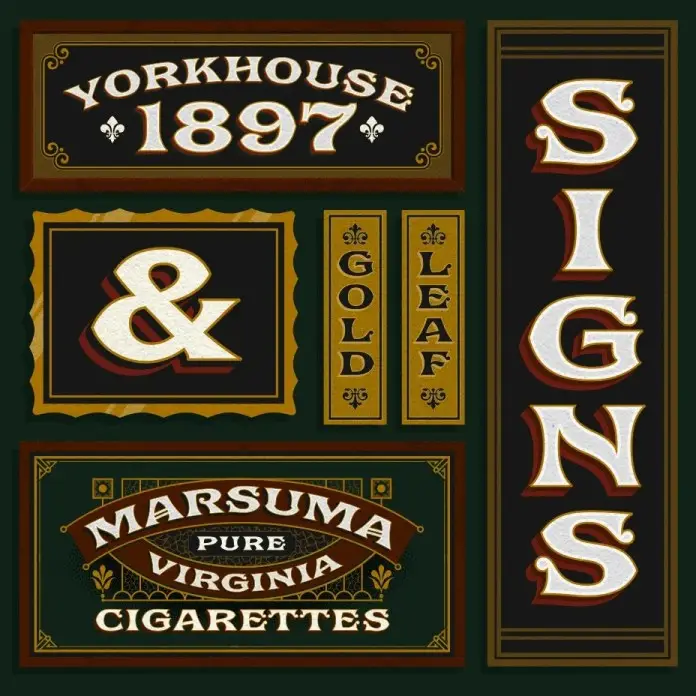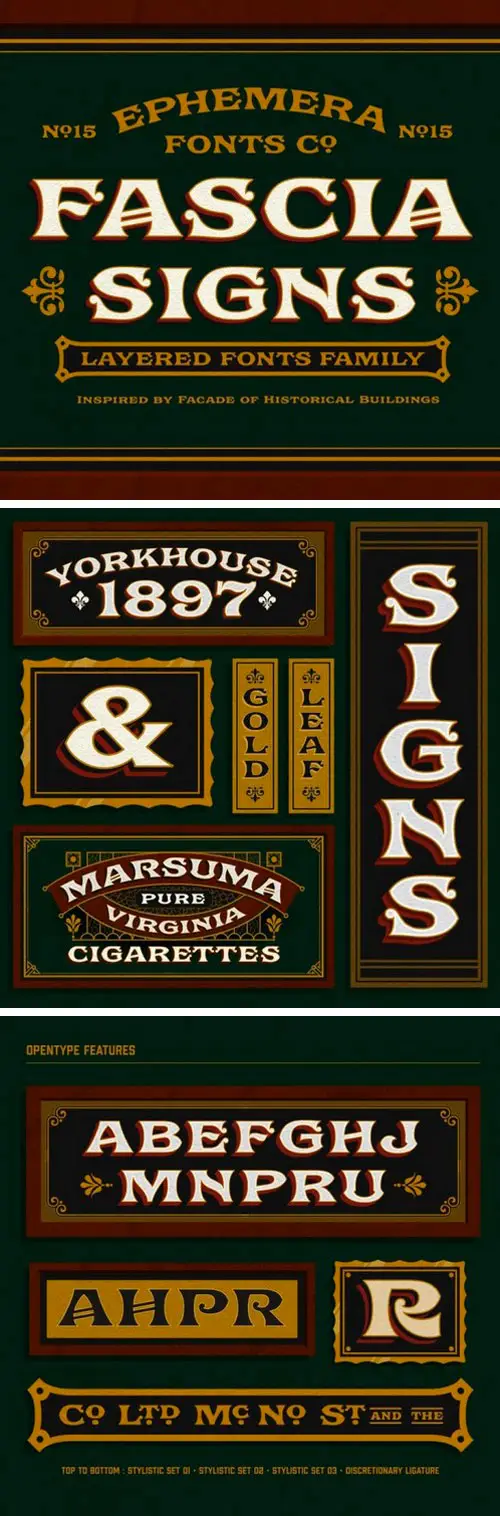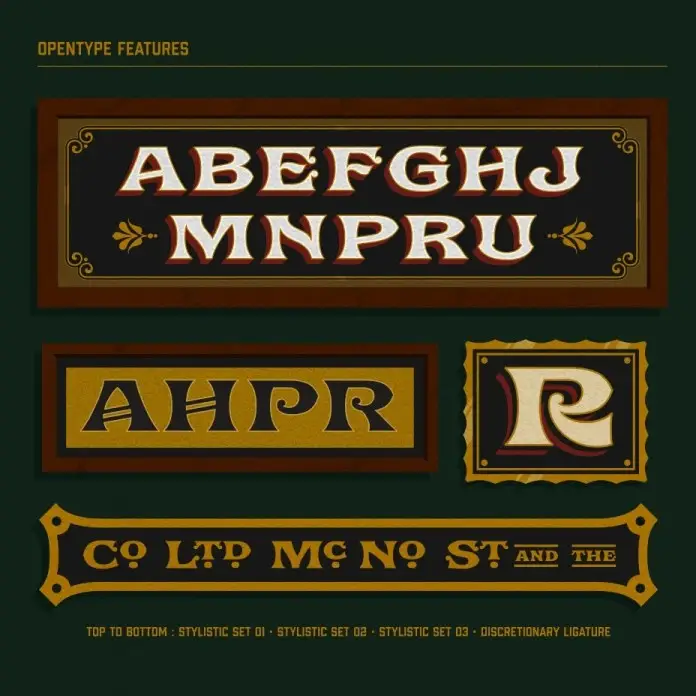
Ephemera Fascia Display Font
The Ephemera Fascia Display Font is a striking typeface designed for bold statements and impactful visuals. With its unique character shapes and attention-grabbing aesthetics, this font is perfect for a variety of creative projects.
• Distinctive display style
• Styles: Display
Ideal for branding, logos, web design, and print materials, the Ephemera Fascia Display Font can elevate your projects with its modern and artistic flair.